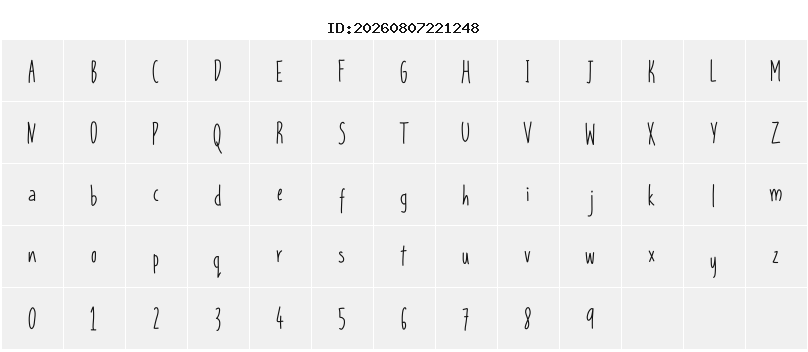
Pushing Up Daisies * Preview
• Font Name: Pushing Up Daisies *
• Full Font Name: Pushing Up Daisies *
• Character Count: 99
About Pushing Up Daisies *.ttf
Pushing Up Daisies *.ttf is a modern, elegant sans-serif font designed for ultimate readability and visual harmony. Perfect for branding, headlines, web design, and print materials.